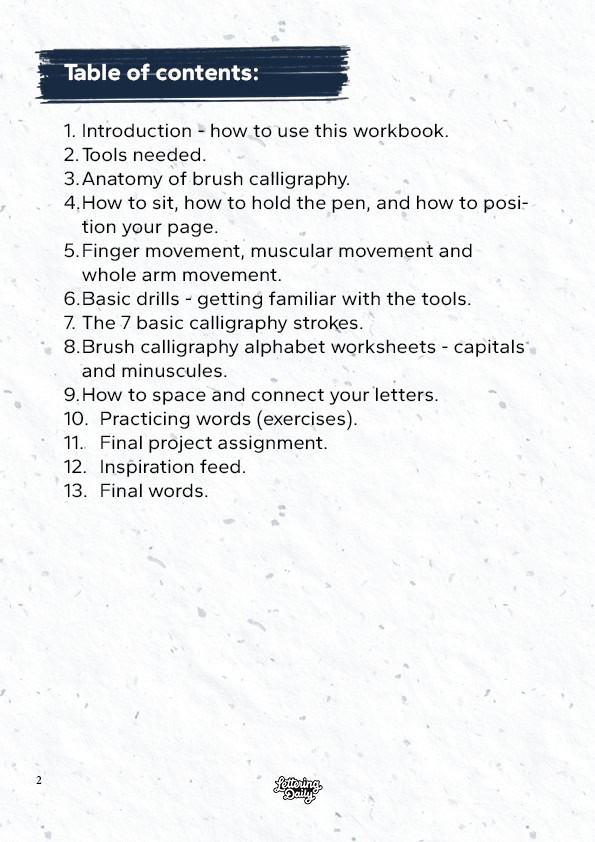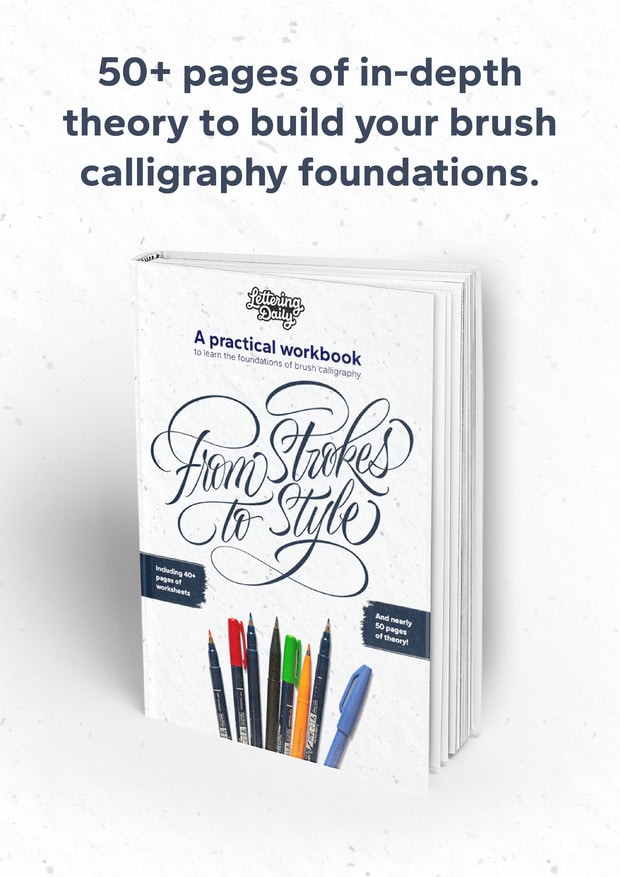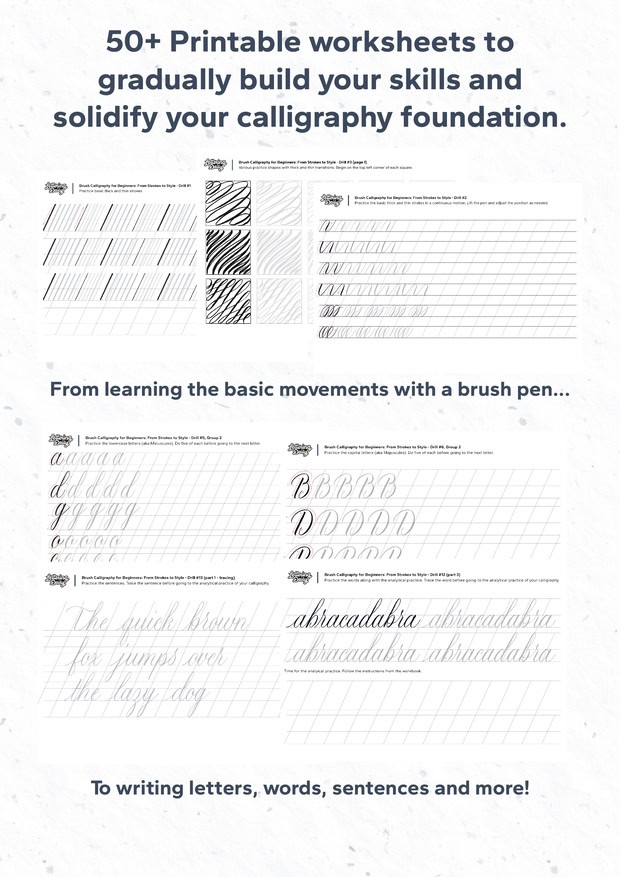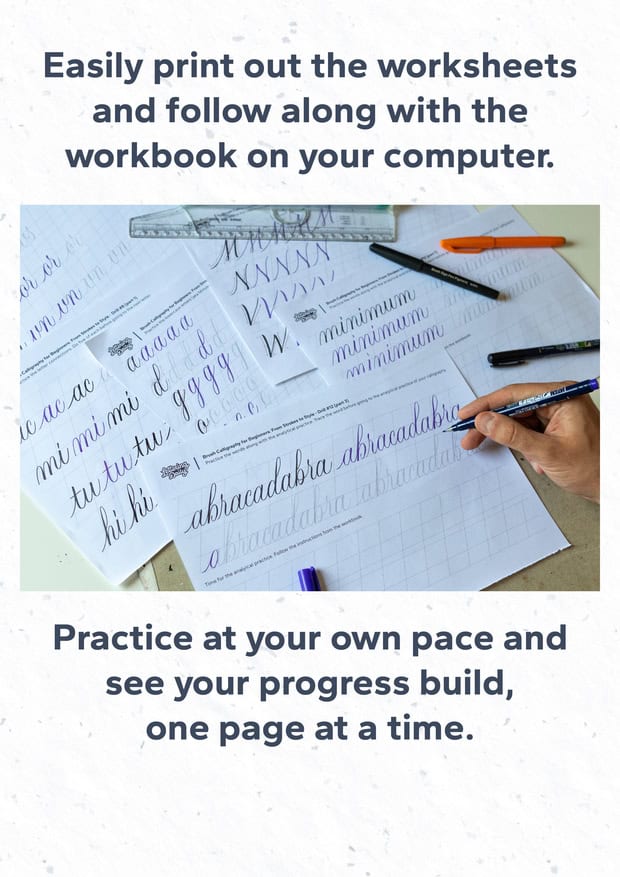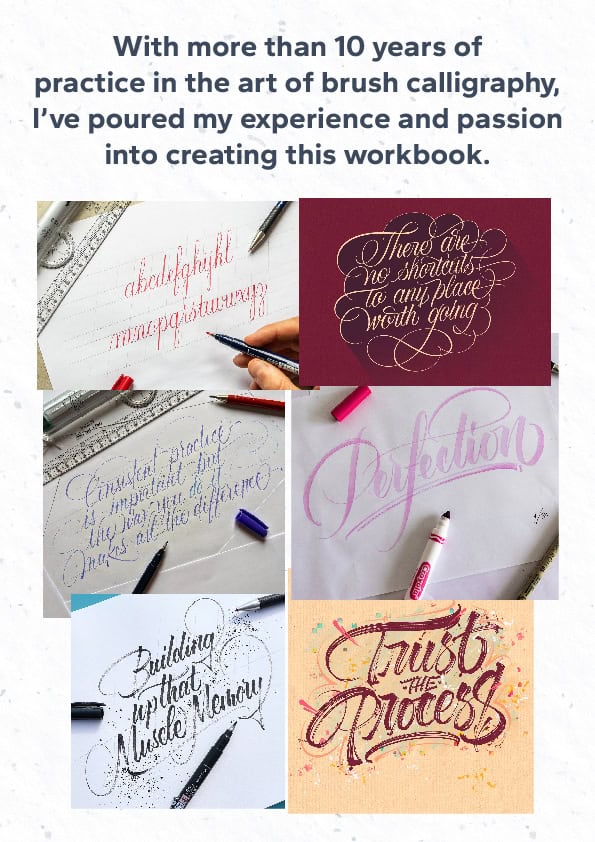
From Strokes To Style – A Brush Calligraphy Workbook
Master the art of brush calligraphy with my comprehensive workbook, featuring over 50 pages of theory and 52 printable worksheets. Ideal for beginners and beyond, this digital download guides you step-by-step from basic strokes to developing a strong foundation for brush calligraphy.
The workbook you will need to master the art of brush calligraphy.
Whether you’re a beginner or looking to refine your skills, this workbook is your ultimate guide to mastering brush calligraphy. With over 50 pages of in-depth theory and 52 printable worksheets, it takes you on a journey from the basics to advanced techniques, ensuring you build a strong foundation.
What makes this workbook unique is its structured approach. We start with the essentials—how to hold your pen, position your page, and perform basic drills—then gradually move to more challenging tasks. By the end, you’ll have the confidence to create your own calligraphy masterpiece.
This workbook is special because it encapsulates nearly a decade of experience in brush calligraphy. I created it to offer more than just tutorials; it’s a comprehensive resource that will help you overcome common struggles and make real progress.
This Comprehensive Brush Calligraphy Workbook Includes:
Workbook Contents:
• Introduction: How to use this workbook effectively.
• Tools Needed: Essential tools for brush calligraphy.
• Anatomy of Brush Calligraphy: Understand the structure.
• Proper Posture and Pen Holding: How to sit, hold the pen, and position your page.
• Movement Techniques: Finger, muscular, and whole arm movement.
• Basic Drills: Get familiar with the tools.
• The 7 Basic Strokes: Foundational techniques.
• Alphabet Worksheets: Minuscules (lowercase), majuscules (capital), and numbers.
• Letter Spacing and Connections: Practice creating consistent, connected letters.
• Word Exercises: Develop your lettering through practical exercises and analytical practice.
• Final Project Assignment: Apply everything you’ve learned.
• Inspiration Feed: Get inspired with examples and ideas.
• Final Words: Encouragement and next steps.
Printable Worksheets Include:
• Basic strokes exercises
• Minuscule alphabet (lowercase)
• Majuscule alphabet (capitals)
• Numbers
• Letter connections
• Tricky letter pairs
• Single words + analytical practice
• Full sentences + analytical practice